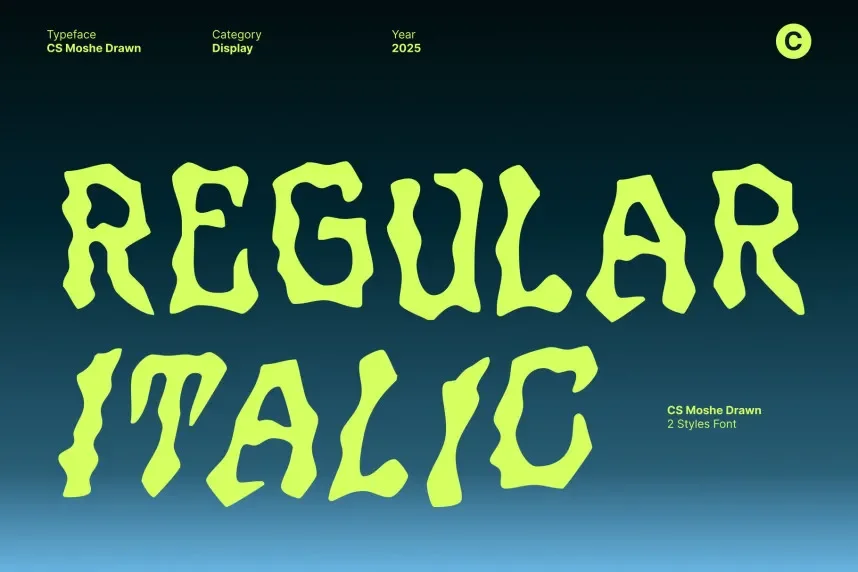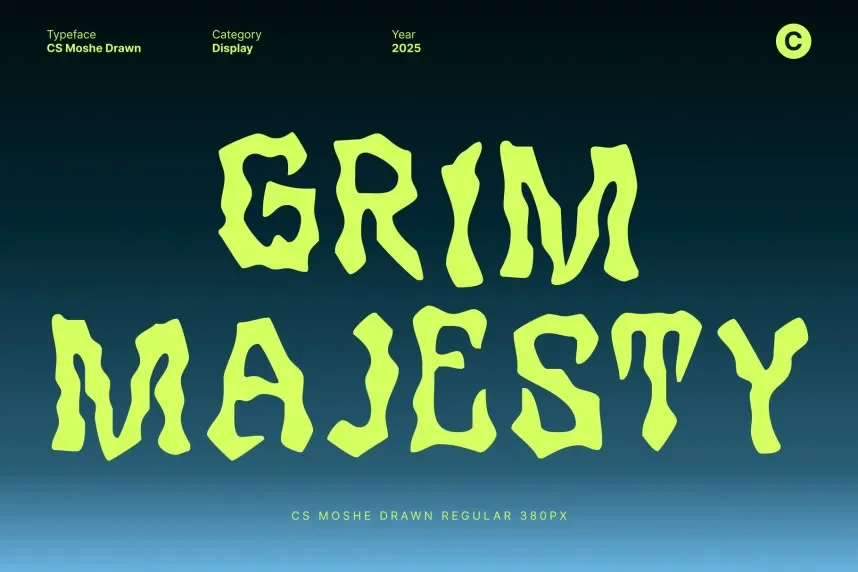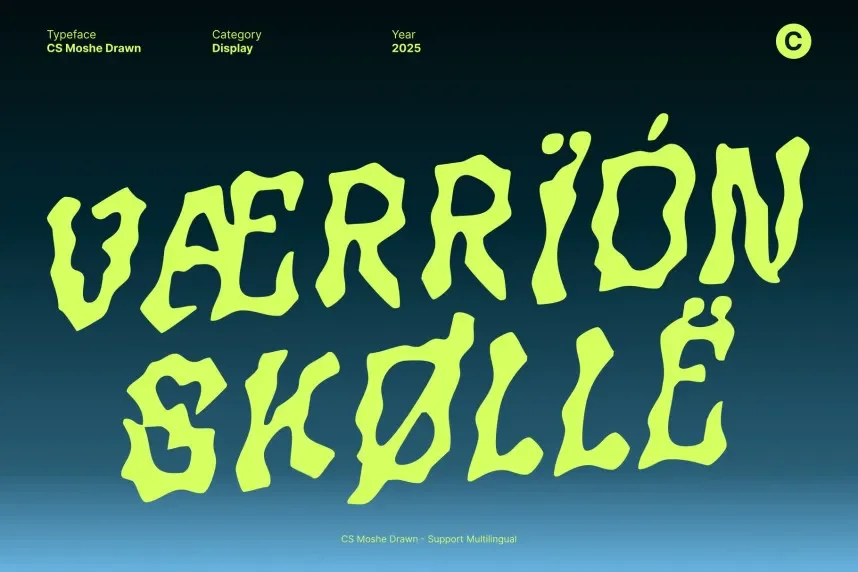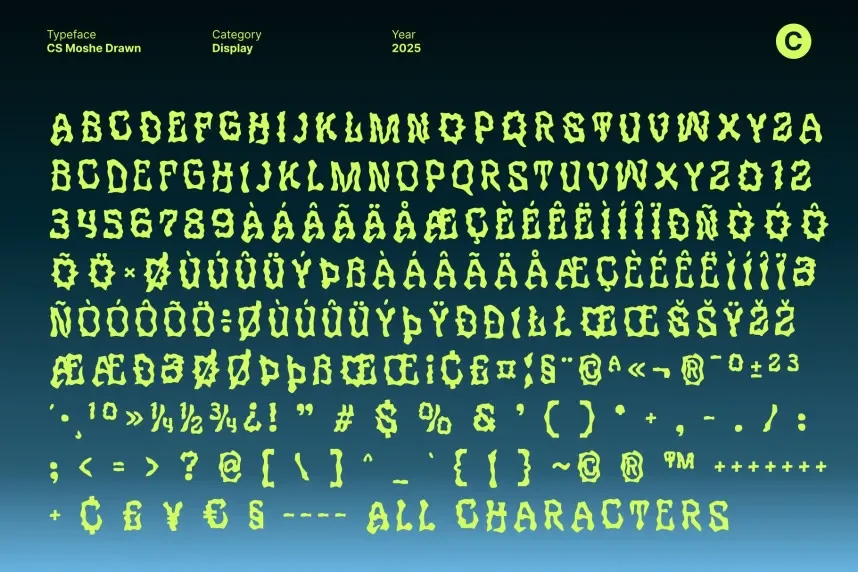
CS Moshe Drawn Font is a script font that combines bold strokes with fluid, hand-drawn elements. This font is ideal for adding a personal touch to branding, invitations, or creative projects that need a unique, handcrafted feel. The letterforms feature strong contrast, with thick and thin lines that add a sense of motion and personality.
Best used in logos, packaging designs, and artistic branding, CS Moshe Drawn Font offers great flexibility. Pair it with a clean sans-serif for readability in body text, ensuring a balanced design. It is available in OTF and TTF formats and comes with a commercial-use license, which means it’s suitable for both personal and client work. Always check licensing details for each project.